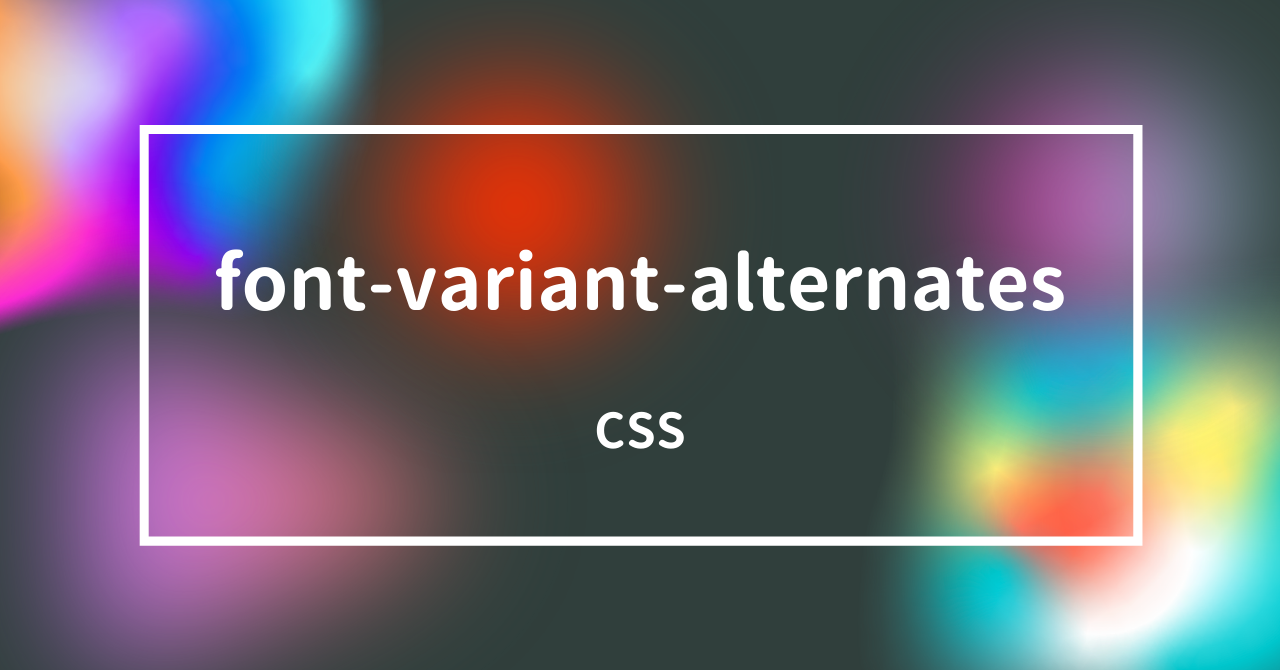
Css Font Variant. This article will give you all you need to know. This property has been extended in css3.
This property has been extended in css3. However, the converted uppercase letters appears in a smaller. This article will give you all you need to know.
This article will give you all you need to know. This property has been extended in css3. However, the converted uppercase letters appears in a smaller. This article will give you all you need to know.